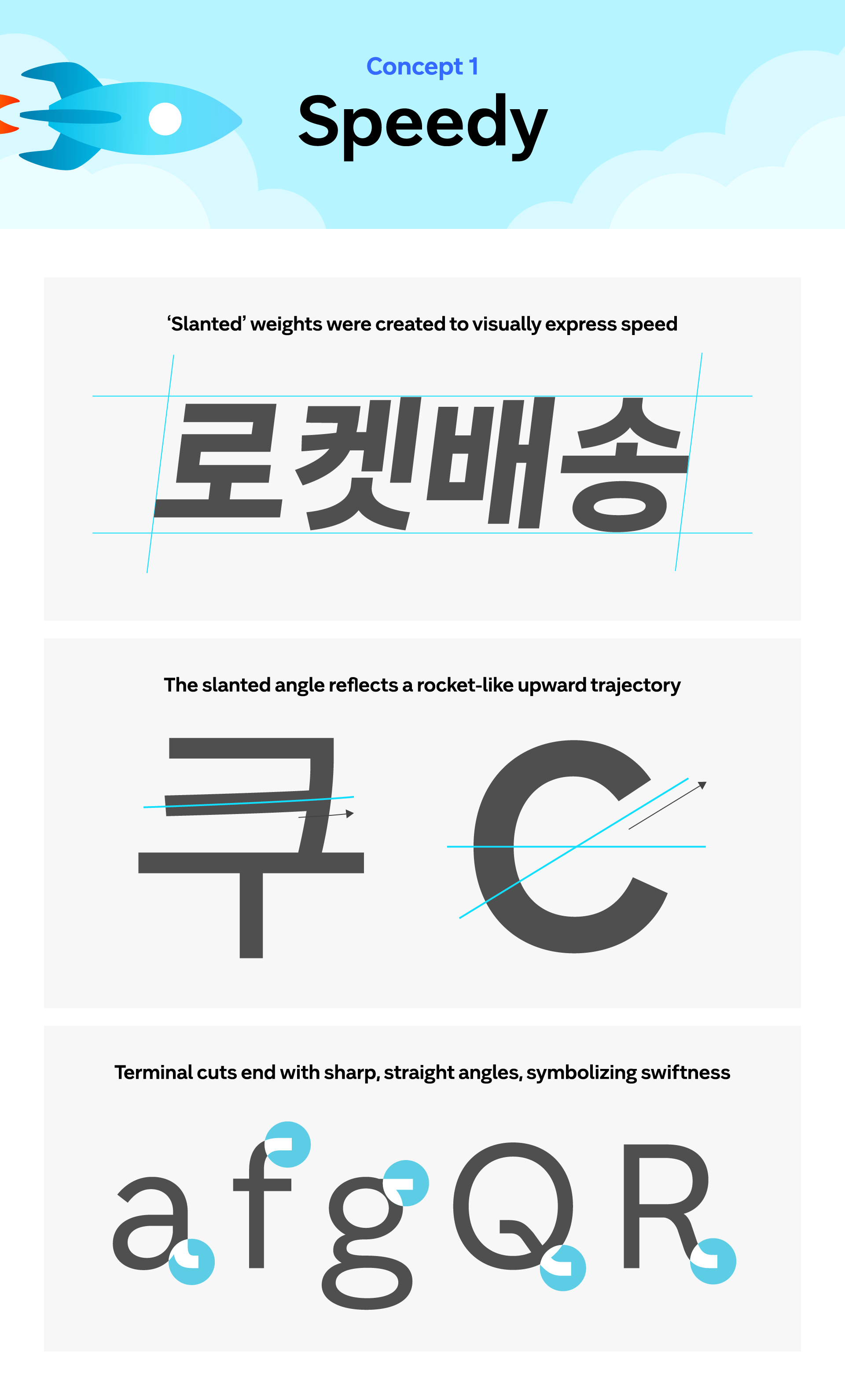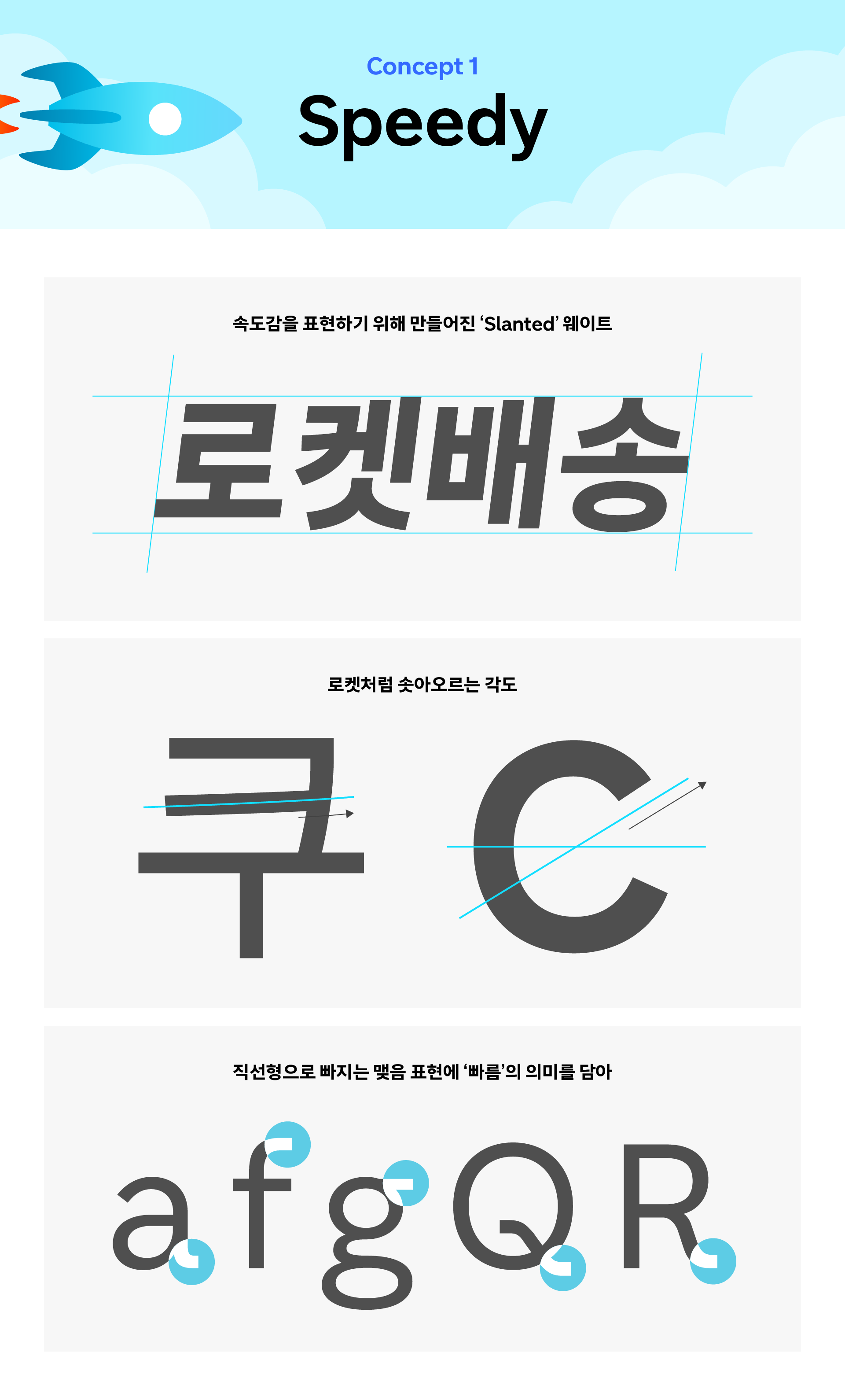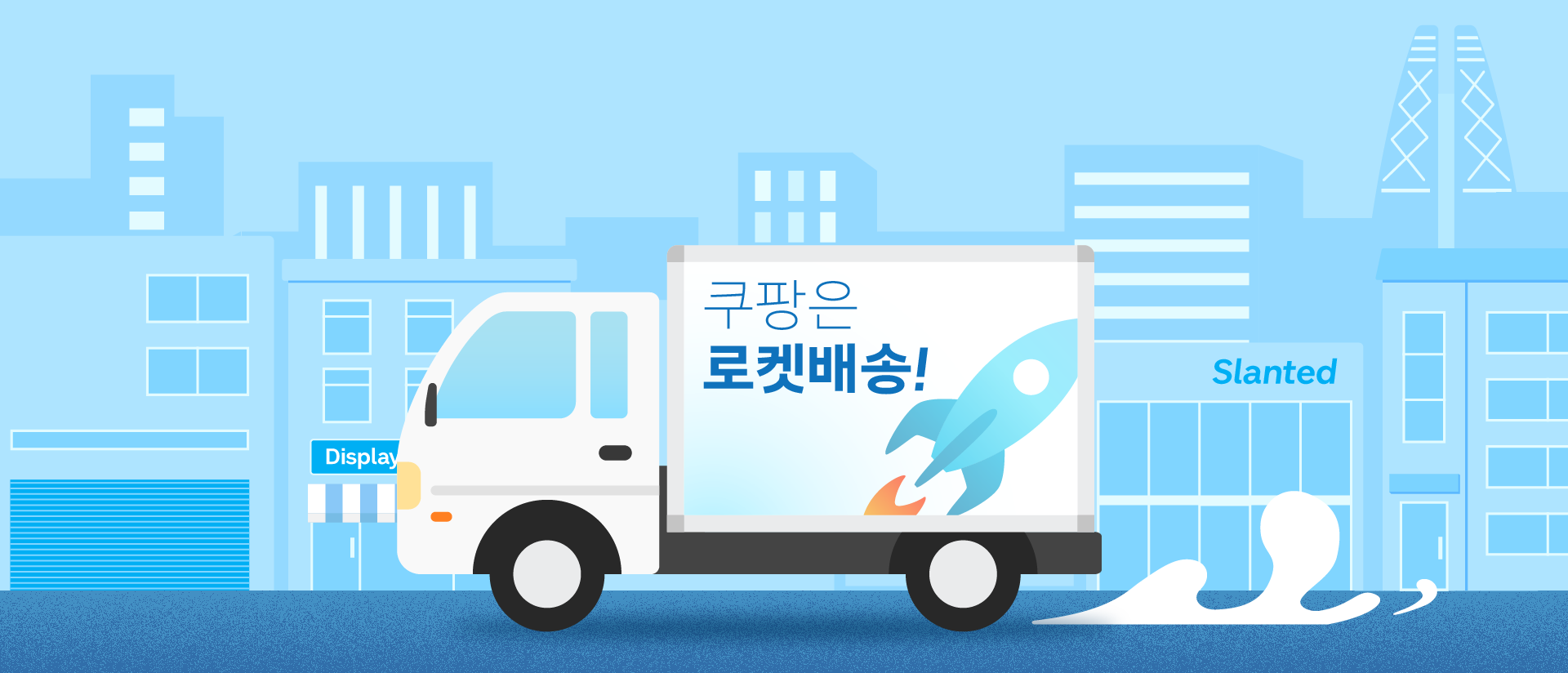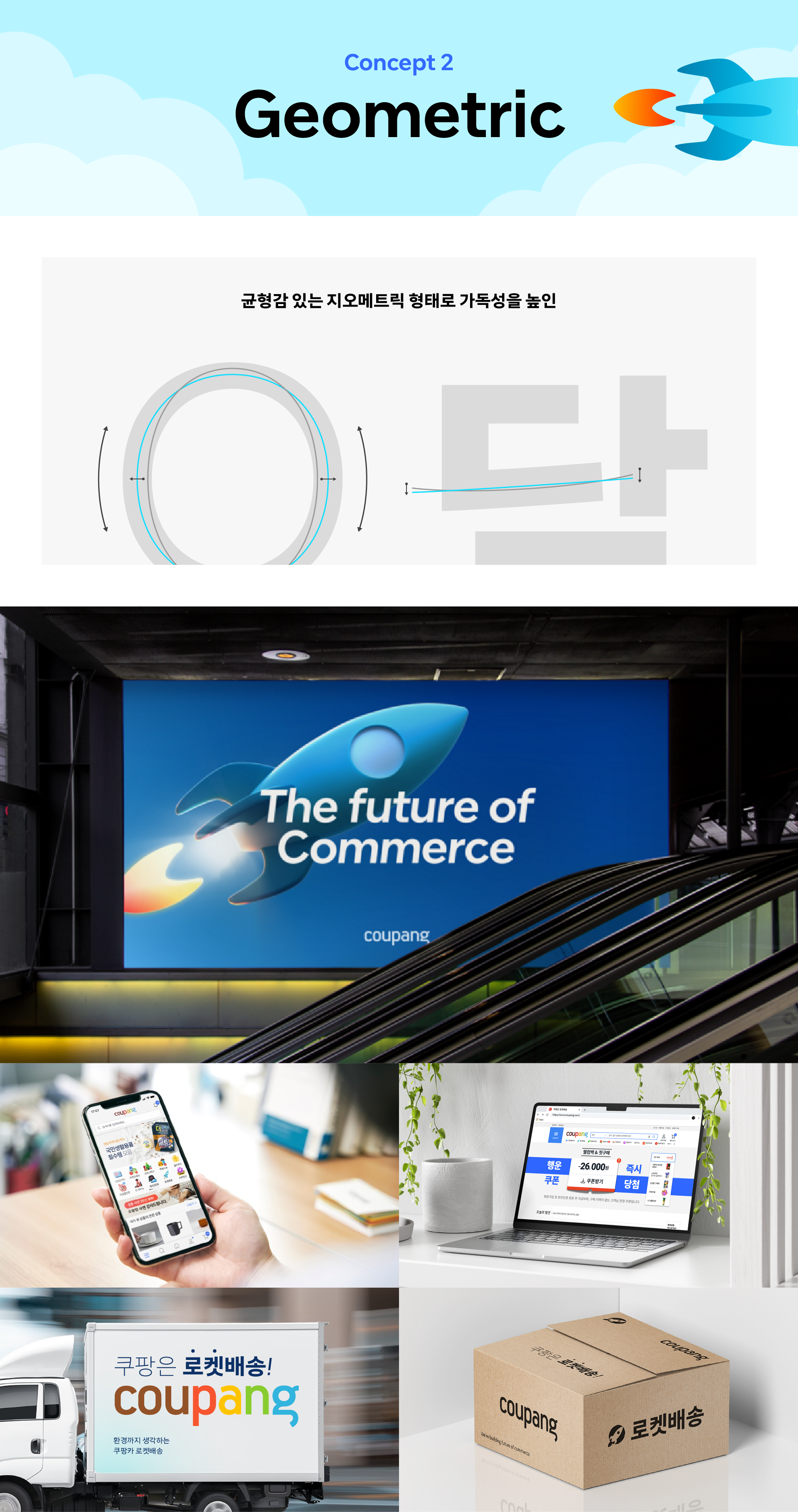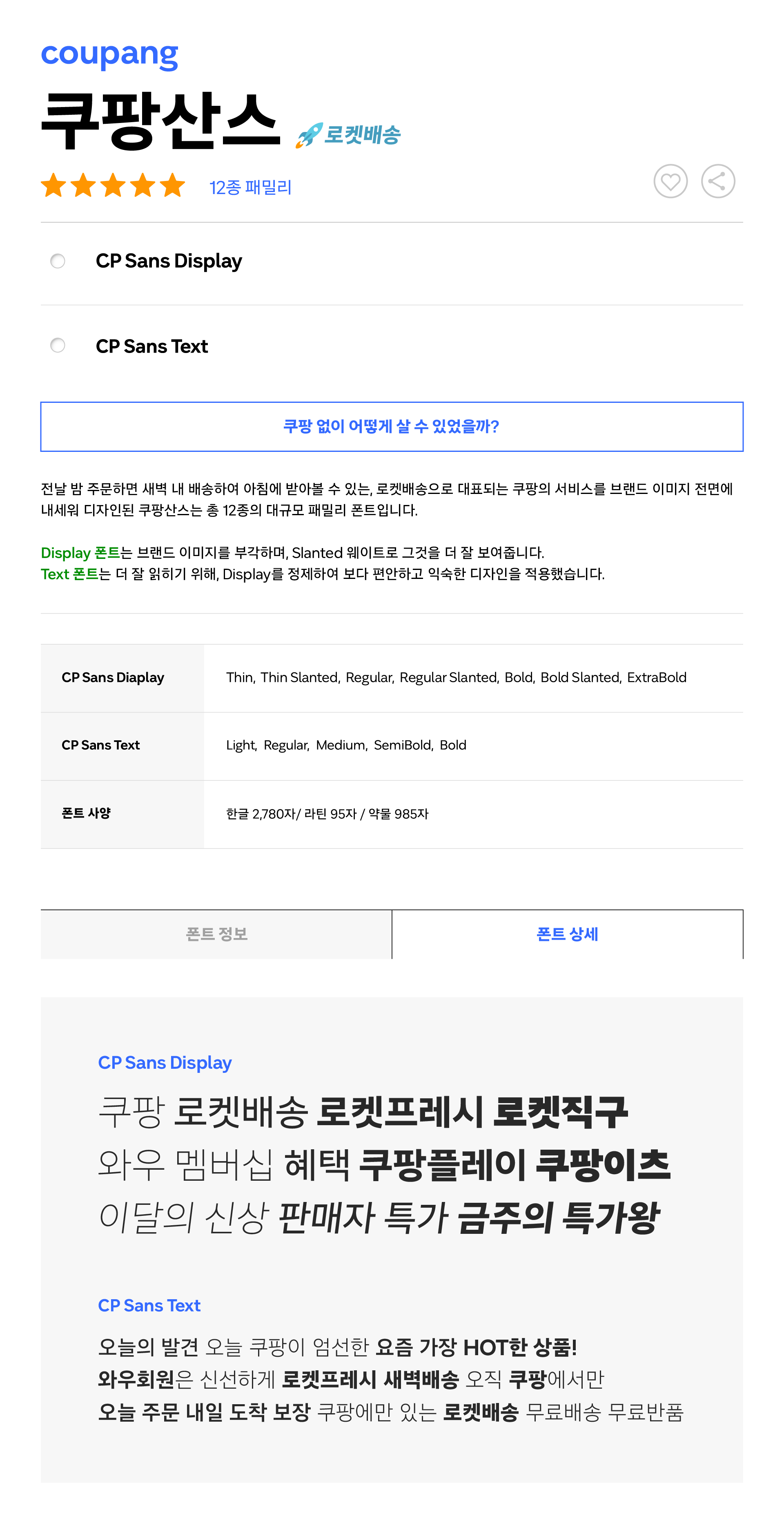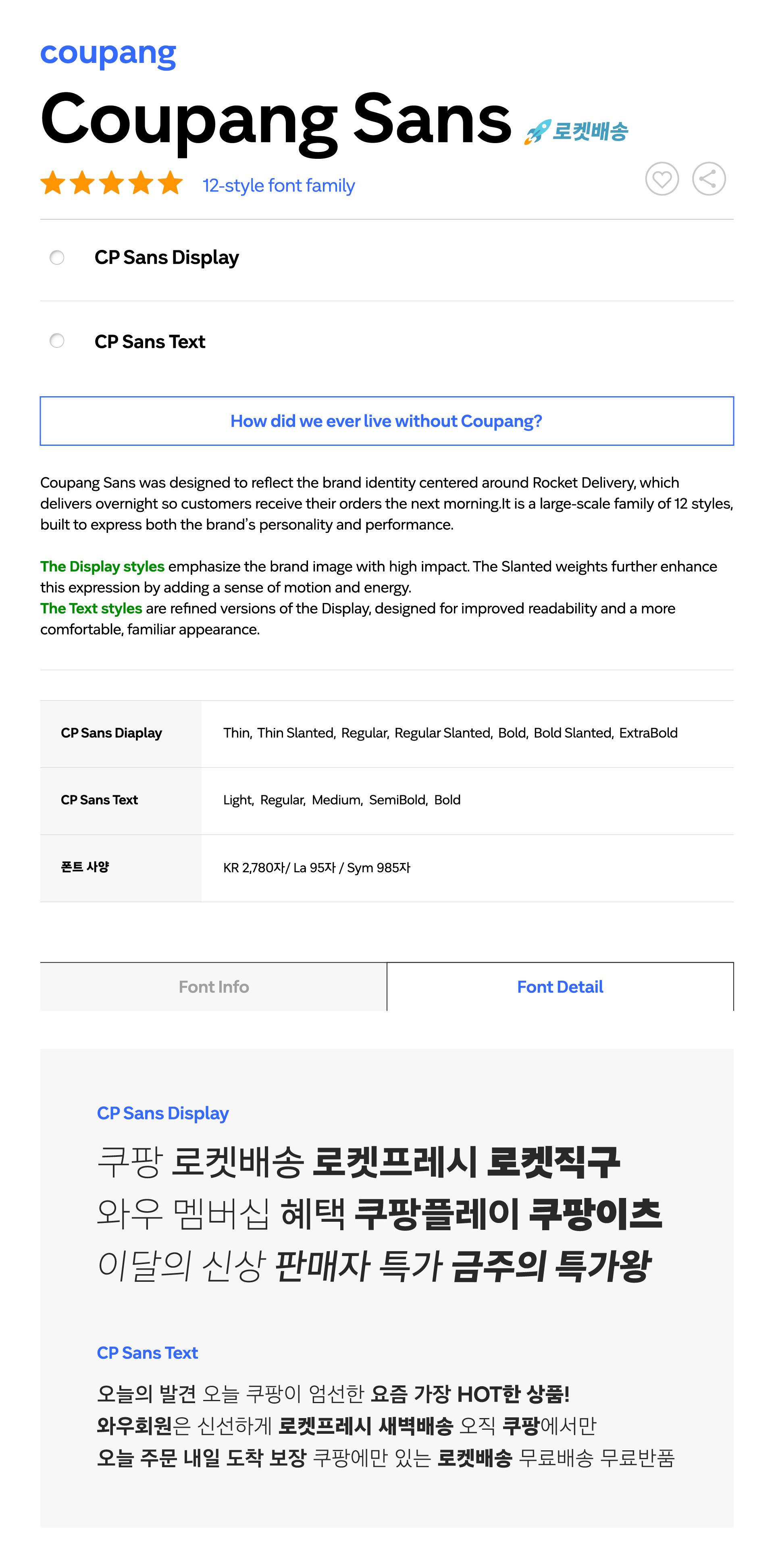
Coupang Sans
“How did we ever live without Coupang?”
「Coupang Sans」 was designed to reflect the brand identity centered around Rocket Delivery, which delivers overnight so customers receive their orders the next morning.
It is a large-scale family of 12 styles, built to express both the brand’s personality and performance.
The Display styles emphasize the brand image with high impact. The Slanted weights further enhance this expression by adding a sense of motion and energy.
The Text styles are refined versions of the Display, designed for improved readability and a more comfortable, familiar appearance.